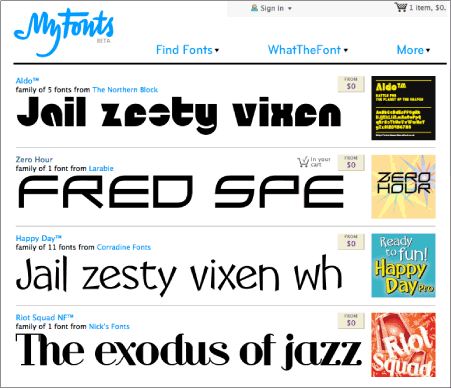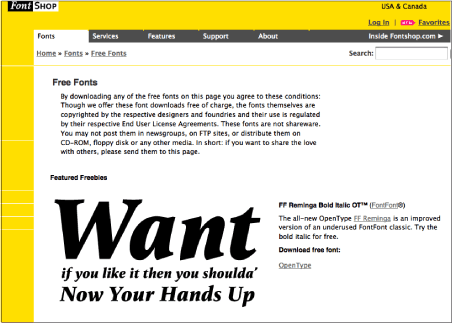
TypeTalk: Are Free Fonts Worth the Price?
Some free typefaces are pirated from legitimate fonts. Others are not stolen but are poorly designed. Here's how to find the ones that both look good and are legit.
Q. What do you think of using free fonts for professional design jobs?
A. You get what you pay for. That said, there are some very good free fonts if you sort the wheat for the chaff.
Free fonts fall into three categories:
1. Fonts from type-design hobbyists
2. Pirated fonts
3. Fonts released by foundries or individual pro type designers
Hobbyist type designers, who create the first category, often don't have the same training or experience as professional type designers. Therefore, free fonts from hobbyists may lack consistent letterforms and proper spacing and kerning. Even if you like the designs, use these faces at your own risk.
The second category consists of fonts have been stolen from other type designers and/or foundries. In some cases, the digital data is rearranged a bit, the design of a few characters changed ever so slightly, and the typeface name either altered slightly to sound like the original (such as Garabonde instead of Garamond) or totally changed. Because this kind of pirating denies the original designer the royalties they deserve, it is an extremely unethical practice. Other pirated fonts are stolen and reoffered for sale with no change to the font. No only is this practice unethical, it's outright illegal.
Three's a charm, and so it is with the third category of free fonts. It most often consists of legitimate, high-quality fonts from major foundries, usually offered when you open an account or sign up (no purchase required) with that foundry. Free fonts are also occasionally given as a bonus when you make a purchase.
myfonts.com has a boatload of well-designed free fonts. Scroll down past the first few with 'free' in their name to get to the truly free fonts.
Price filter on MyFonts
You can also use the price filter on MyFonts to find things with a price of $0 (or any other value, for that matter). For example: http://new.myfonts.com/search/lowest_price%3A%5B%2A+TO+0%5D/fonts/
Great!
Ilene, thanks so much for all the great and informative information!! It's the type everyone needs LOL!!! (Ooh couldn't help it :)
Free Fonts
This is something we struggle with at my advertising agencies. The designers often download and try to use free fonts with their projects. More often than not, if they slip through the production process, we get a call from the print vendor saying the fonts can't be used. Now we have strict rules in place that only a few people in the company have authority to OK new fonts and free fonts are forbidden (at least to the people who don't know anything about fonts). We own more than 1000 fonts so we feel our decision to ban free fonts shouldn't stifle creativity. So far so good.